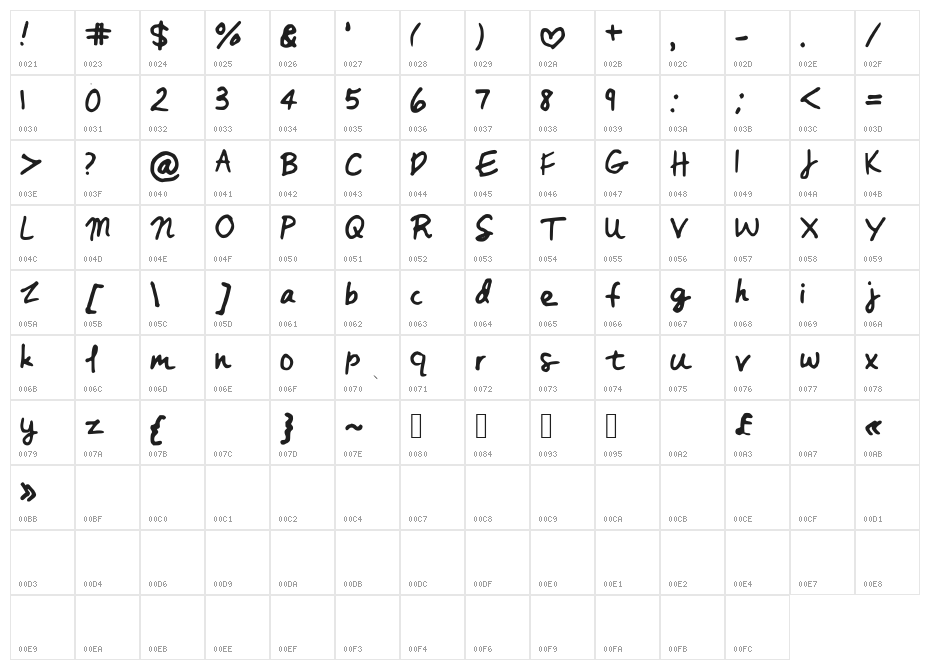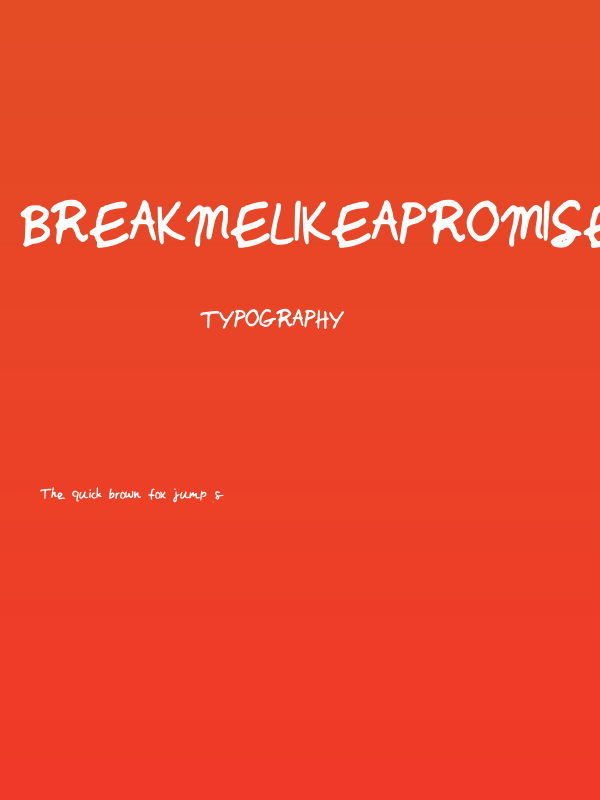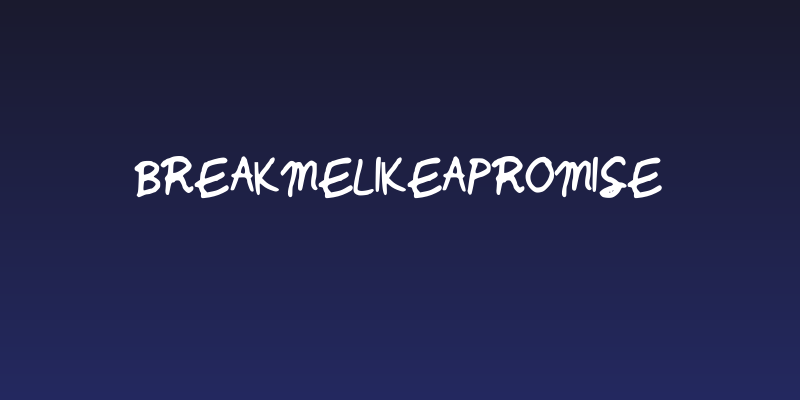
BreakMeLikeAPromise Font
BreakMeLikeAPromise Description
This font exhibits a playful and casual handwritten style, characterized by its bold and slightly irregular strokes. The uppercase letters are distinct and slightly larger than the lowercase, adding a dynamic feel. The lowercase letters maintain a consistent flow, enhancing readability while retaining a personal touch. Numbers are bold and clear, matching the overall style. Special characters are creatively designed, adding to the font's versatility. The font's informal nature makes it suitable for projects that require a personal or friendly tone.
| Overall Style | Casual |
| Use Case | Headlines, Logos, Informal Text |
| Proposed Projects | Ideal for greeting cards, personal branding, social media graphics, and informal invitations. |